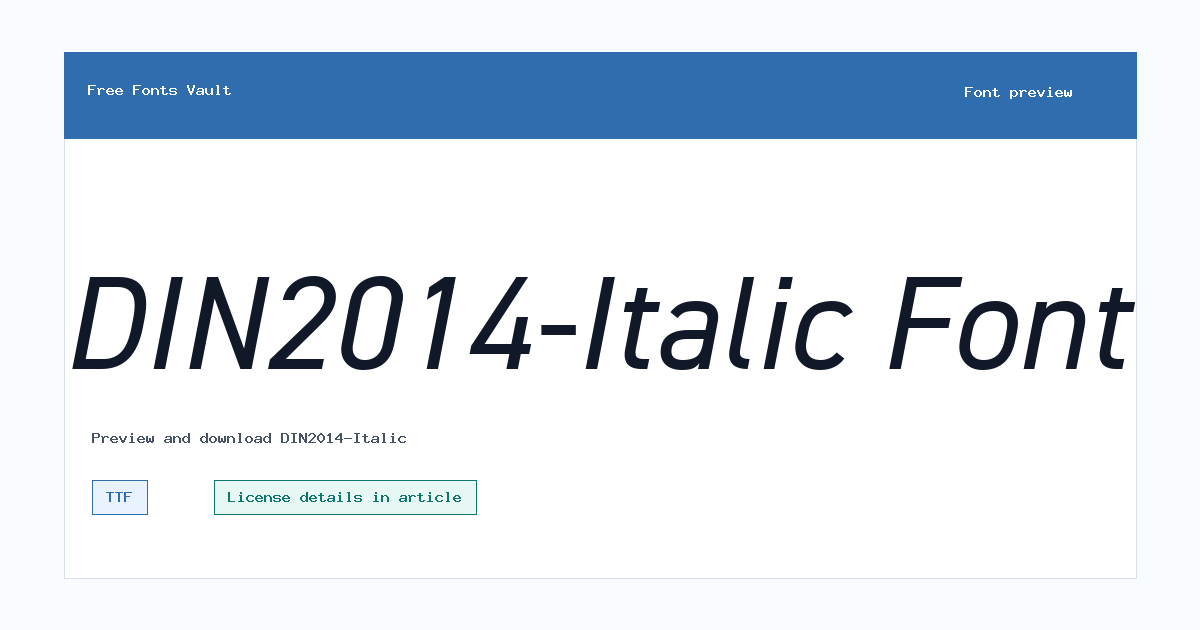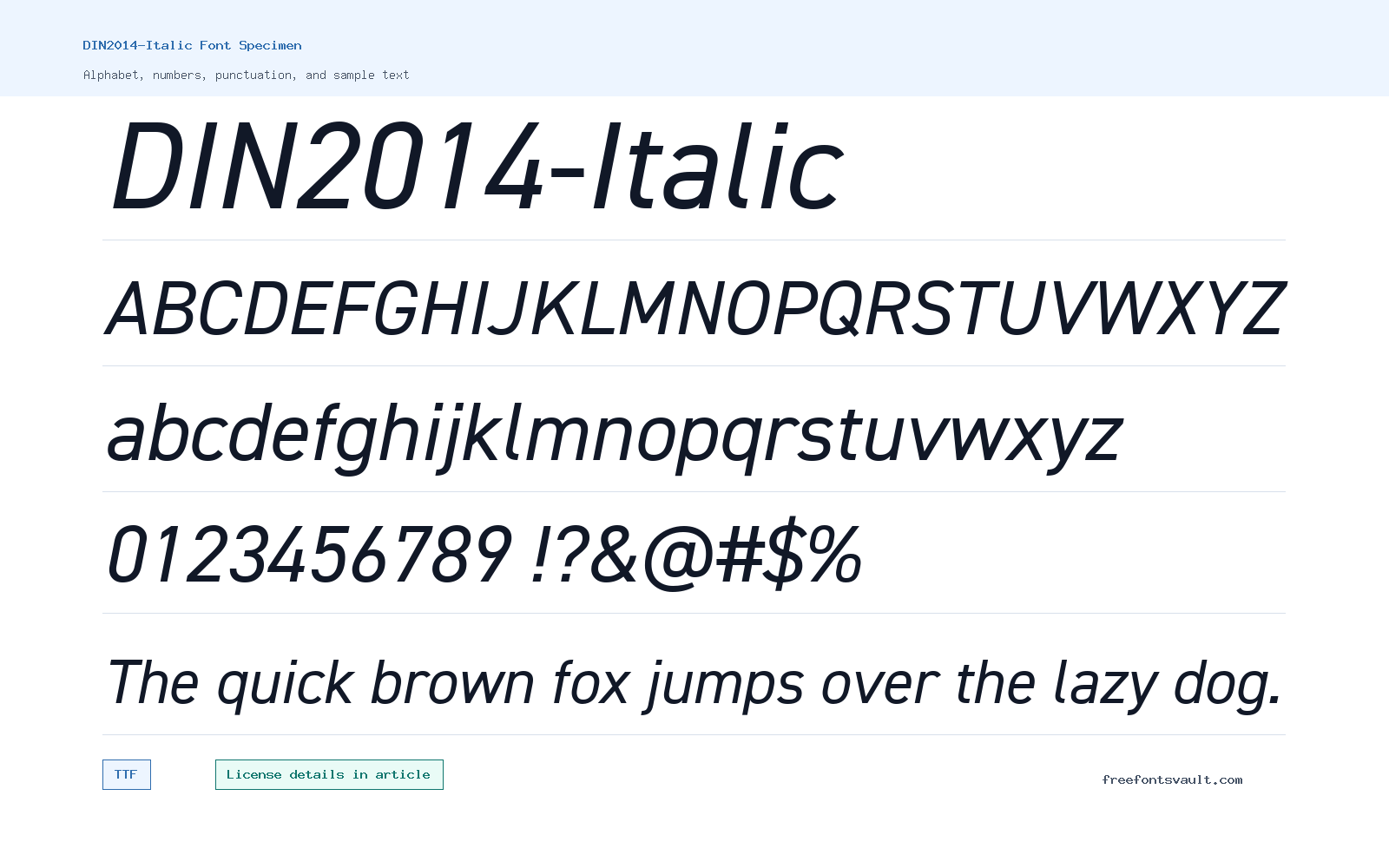
DIN2014-Italic
- Designer Vasily Biryukov
- Foundry ParaType Ltd
DIN2014-Italic font.
DIN2014-Italic is a regular-weight italic TTF style credited to Vasily Biryukov, with ParaType Ltd listed as the foundry.
About DIN2014-Italic
DIN2014-Italic is useful when a layout needs emphasis while keeping a structured sans serif tone. The slant gives text movement, but the DIN-style name suggests a clean, technical direction rather than a decorative script. Use it for captions, pull quotes, secondary headings, short labels, and interface accents where italic emphasis should still feel organized.
- Clean technical tone suited to controlled emphasis and short text.
- Designer credit to Vasily Biryukov and foundry credit to ParaType Ltd.
- Short headings, captions, side notes, and pull quotes.
- Editorial layouts, UI accents, labels, forms, and clean display settings.
- Technical-looking emphasis where a script or decorative italic would feel too soft.
- Pairing with an upright sans serif for clear hierarchy.
- Testing numbers and punctuation in concise information-heavy designs.
Use DIN2014-Italic for emphasis rather than long uninterrupted reading. Preview all-caps words, mixed-case titles, punctuation, numbers, and narrow columns. If the slant makes dense text tiring, keep the italic for short moments and use an upright companion for paragraphs.
What style is DIN2014-Italic?
It is an italic style with a regular 400 weight.
Who designed DIN2014-Italic?
The font is credited to Vasily Biryukov, and ParaType Ltd is listed as the foundry.
What is DIN2014-Italic best used for?
It is best for short emphasis, captions, pull quotes, labels, and technical-looking display accents rather than long body text.